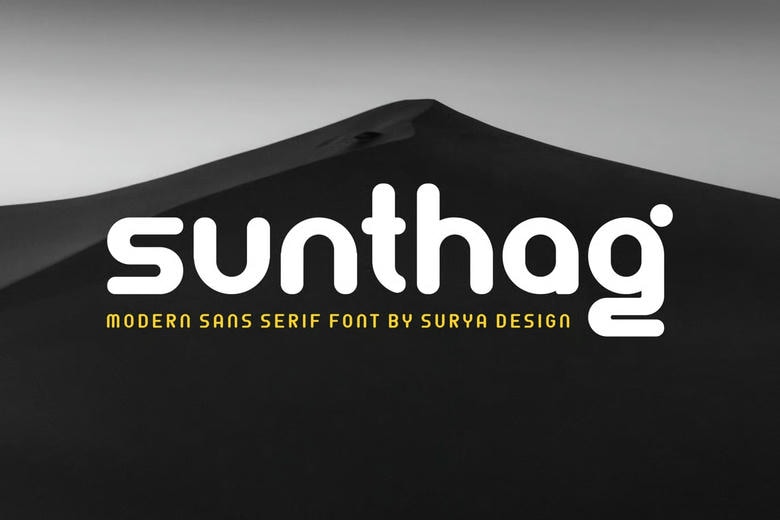
Sunthag Font
Sunthag Font– Modern Font is a bold and authentic sans serif font. The font is suitable for any branding project like logo, t-shirt printing, esport, and many more. outstanding in a wide range of contexts.
Sunthag Modern Sans Serif Font